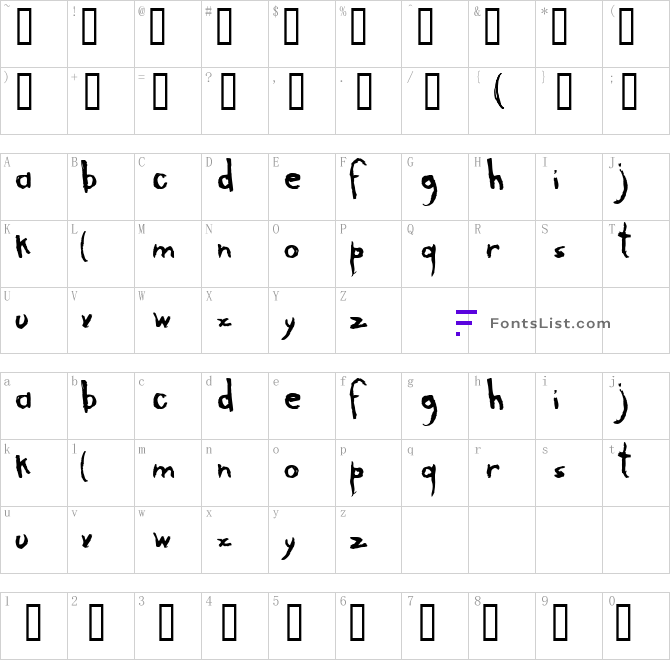
- Font Name:arranha
arranha.ttf is a very beautiful artistic font, arranha.ttf is widely used in the design and printing of various books and pictures,arranha.ttf has a strong visual impact,arranha.ttf is a commonly used font in newspapers, magazines and books, and is used in posters, e-commerce Poster design, store design, logo design, font design and other fields.arranha.